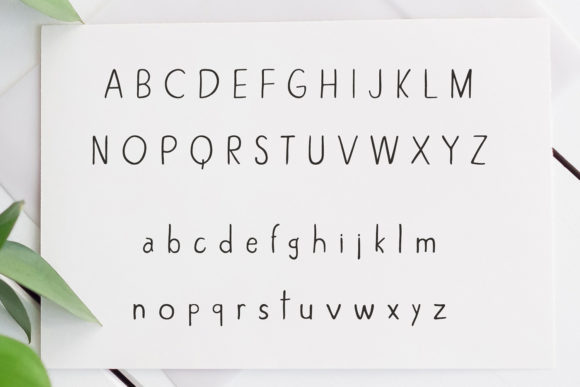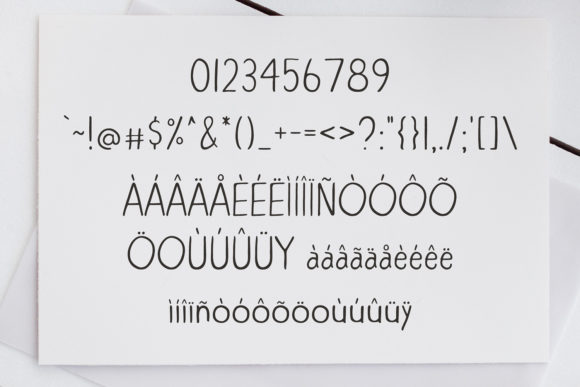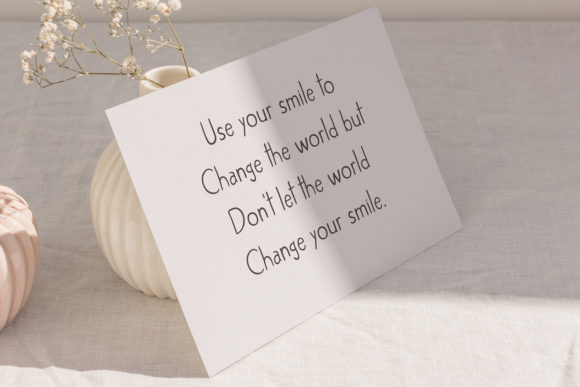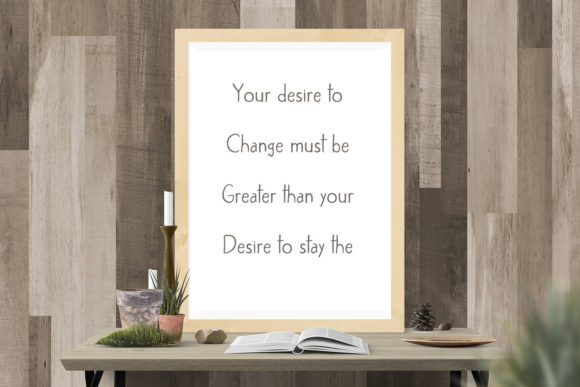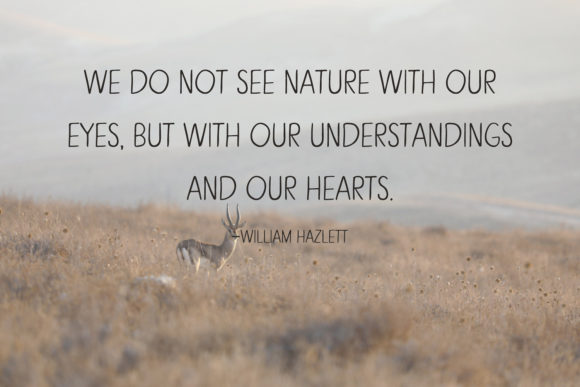
About Alexiss Font
Alexiss is a cute and simple lettered handwritten font. No matter the topic, this font will be an incredible asset to your fonts’ library, as it has the potential to elevate any creation.